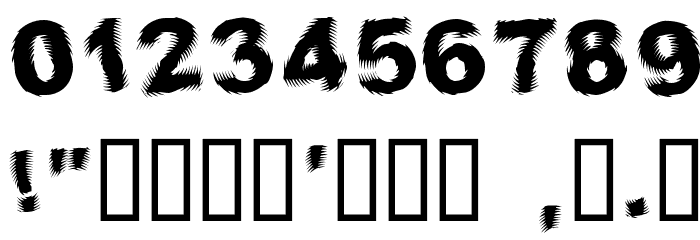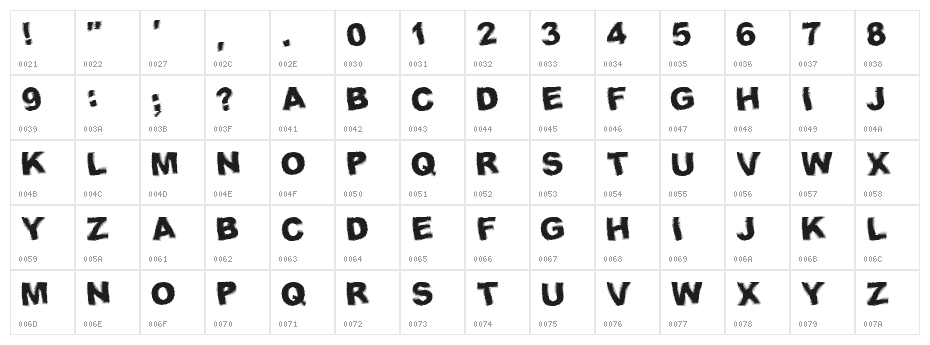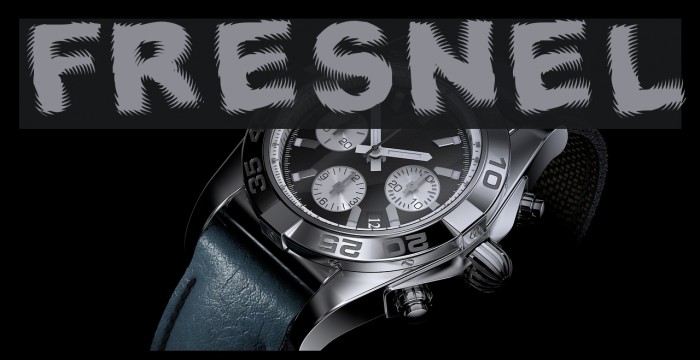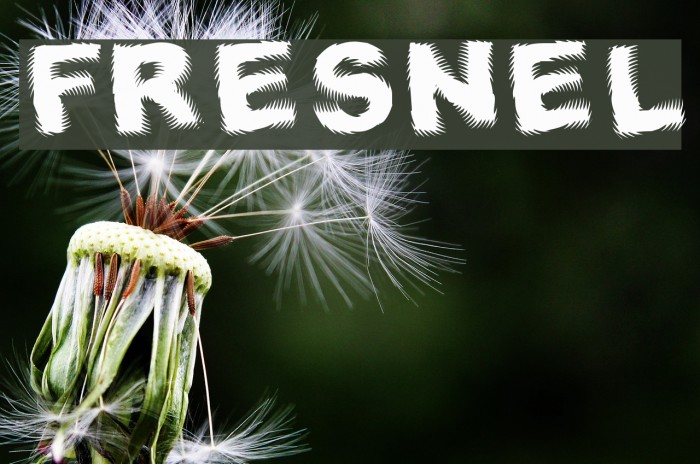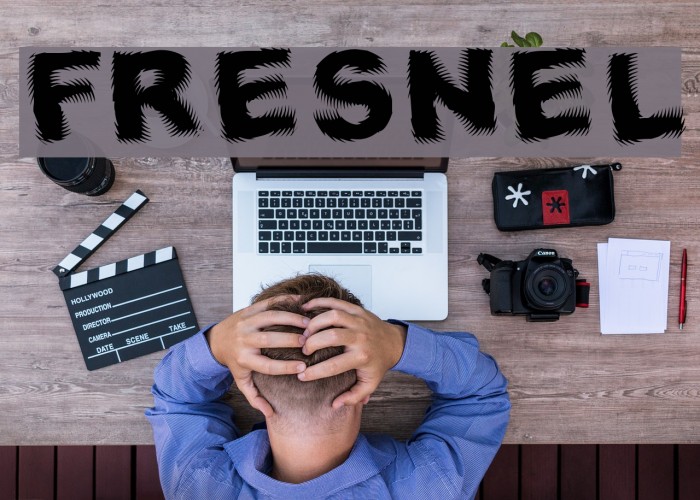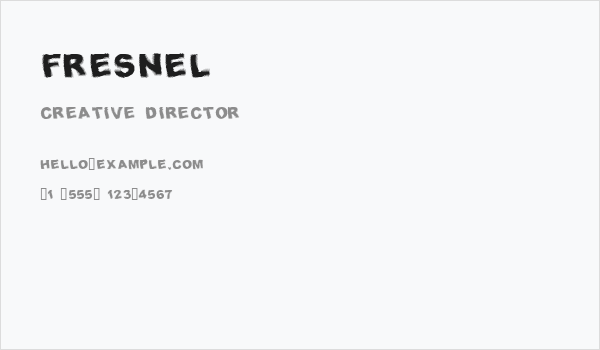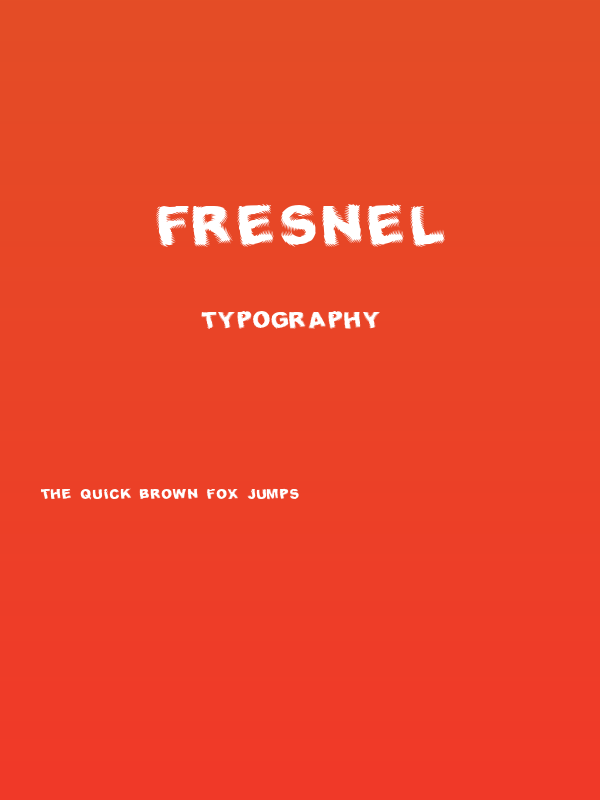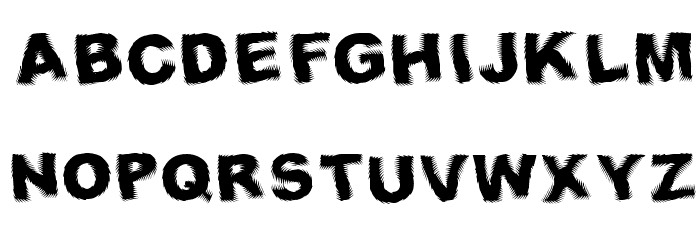
Fresnel Font
Fresnel Description
This font features a dynamic and energetic design, characterized by its bold, jagged edges and a sense of movement within each character. The strokes appear as if they are vibrating or pulsing, giving the font a unique, eye-catching appearance. The uppercase and lowercase letters maintain a consistent style, with the uppercase being slightly more pronounced. The numbers and special characters follow the same design principles, ensuring uniformity across all glyphs. This font is ideal for projects that require a bold statement or a sense of urgency and excitement.
Proposed ProjectsIdeal for posters, music album covers, event flyers, and any project needing a bold, energetic look.